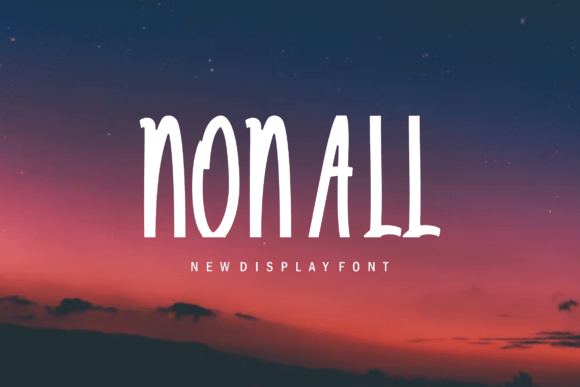
Introducing Nonall Font, a captivating display font that will add a touch of charm and uniqueness to your designs. Inspired by the elegance of the letter "S," Nonall boasts a playful and whimsical style that will elevate your projects to new heights.
With its meticulously crafted curves and endearing personality, Nonall is the perfect choice for creating memorable and heart-warming designs. Its versatility extends across a wide range of applications, including wedding invitations, gratitude cards, delightful greetings, captivating logos, and so much more.
Nonall is more than just a font; it's an expression of creativity and individuality. It's a font that will make your designs stand out and leave a lasting impression on your audience.
Step into a world of captivating designs with Nonall Font. Let your imagination soar and create something truly extraordinary. Let Nonall be the font that adds a touch of magic to your designs and ignites your passion for creating captivating visual masterpieces.